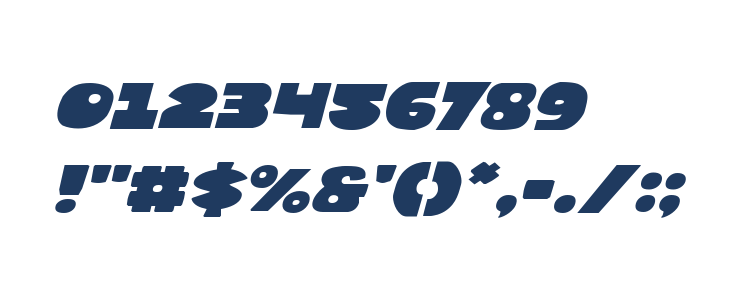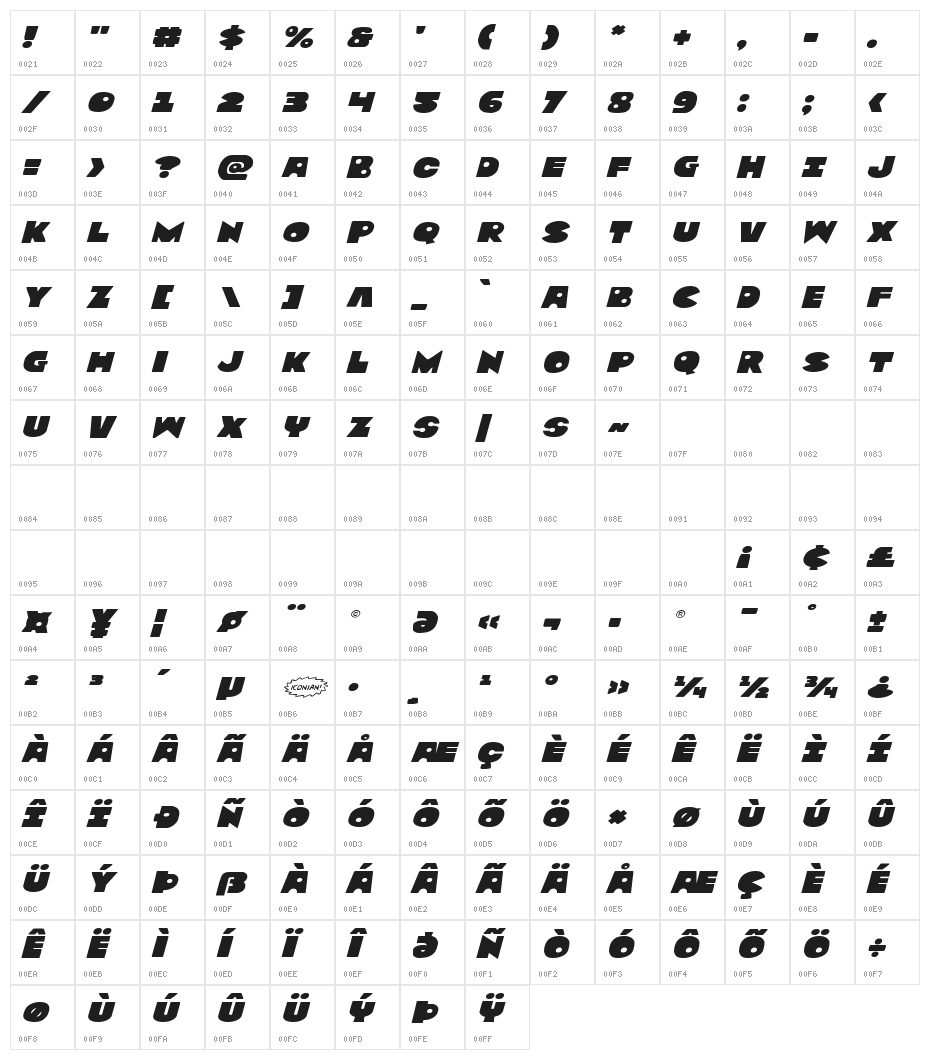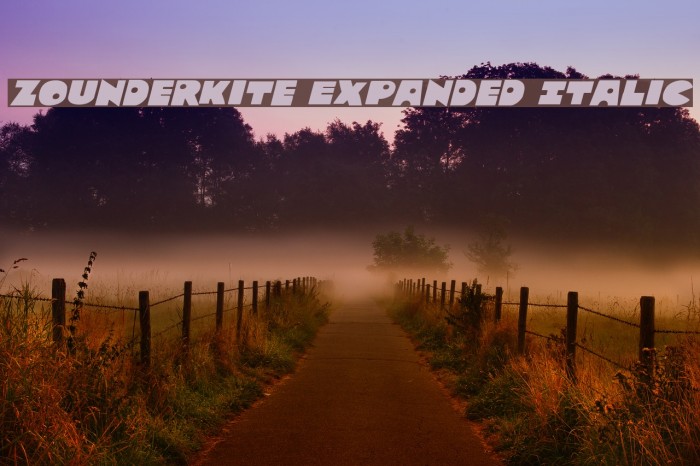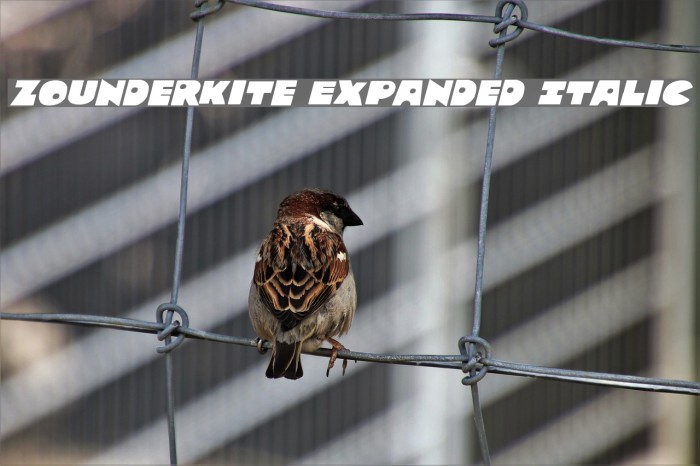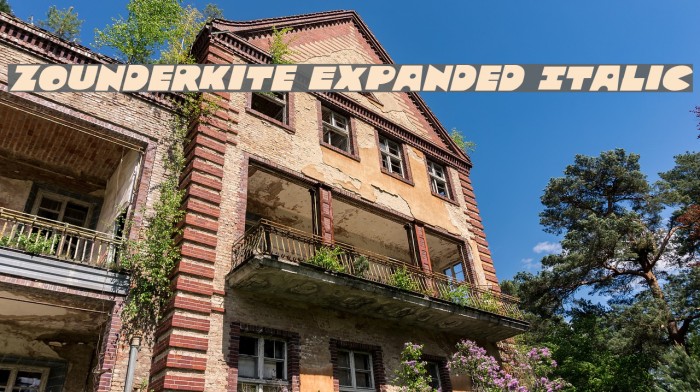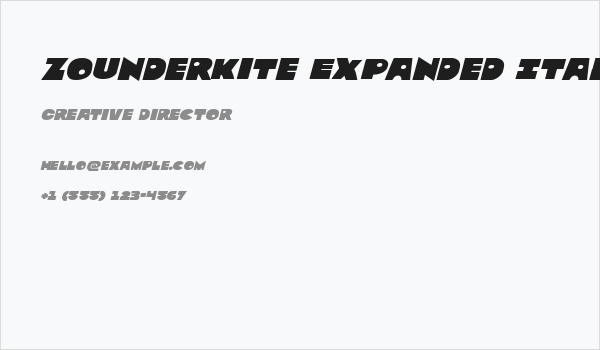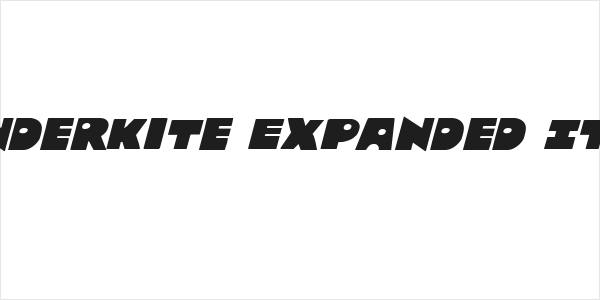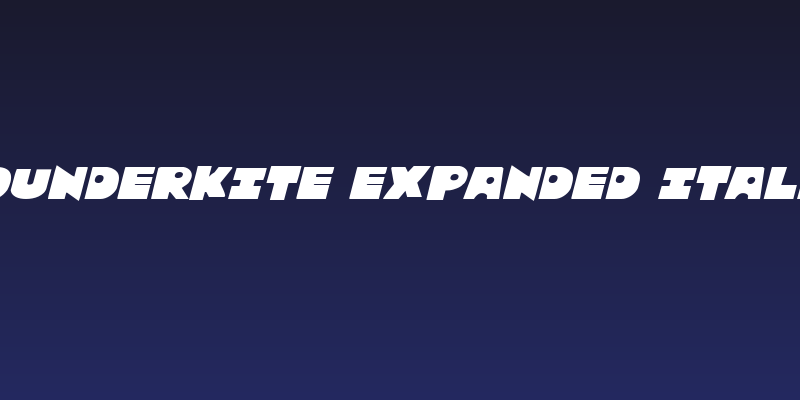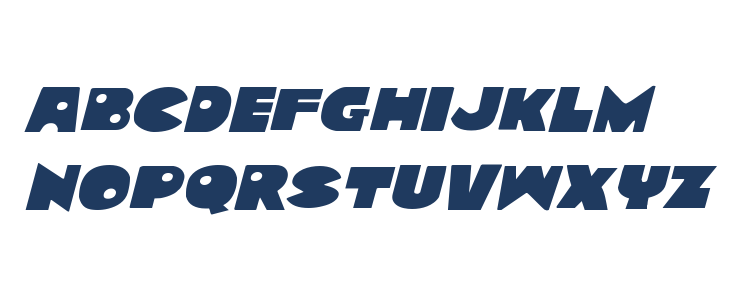
Zounderkite Expanded Italic Font
Zounderkite Expanded Italic Description
This font features a bold and dynamic style with an expanded width and italic slant, giving it a sense of movement and energy. The characters are heavily weighted, providing a strong visual impact. The design includes unique geometric elements, particularly noticeable in the angular cuts and rounded edges, which contribute to its modern and futuristic appearance. The uppercase and lowercase letters maintain a consistent style, with a slight variation in the lowercase set to enhance readability. The numbers and special characters are equally bold, ensuring uniformity across all glyphs. This font is ideal for projects that require a standout, eye-catching typeface.